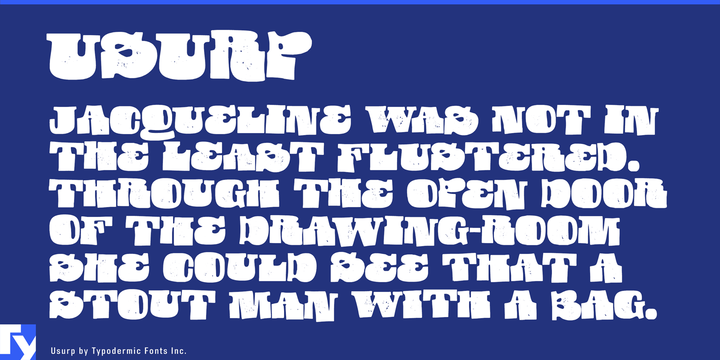
Usurp
The Usurp Font Family was designed by Ray Larabie and published by Typodermic. Usurp contains 1 styles. More about this family
Usurp is a heavyweight slab serif typeface born from scissors and paper, not perfection. Each letter carries the irregular rhythm of hand-cut shapes, stacked with a dense, sculptural energy that refuses to fade quietly into the background.
This is typography for when you want text to feel alive. Usurp’s chunky curves and unexpected forms bring a tactile punch to everything from indie concert posters and art booklets to craft packaging and boutique branding. It thrives in bold book covers, zines, and cultural event posters, and it lends character to digital projects like album artwork, movie posters, or game titles. Wherever it appears, it pushes against polish, embracing a raw, human edge.
If your design calls for something eccentric yet deliberate, Usurp delivers. It’s not nostalgia—it’s rebellion in letterform, ready to reshape headlines into bold cut-out statements.